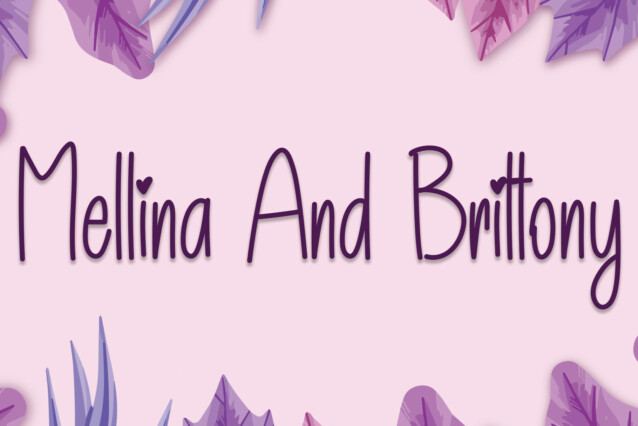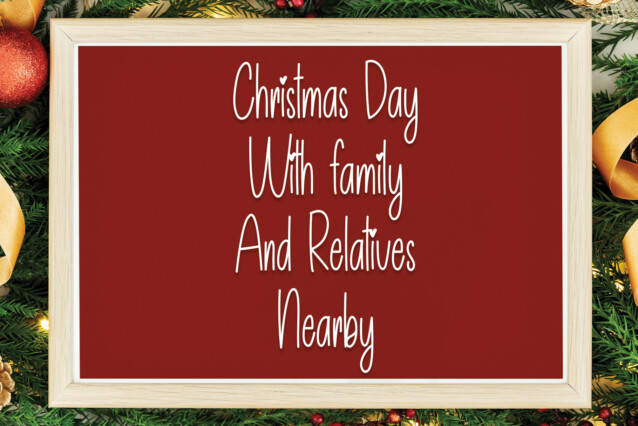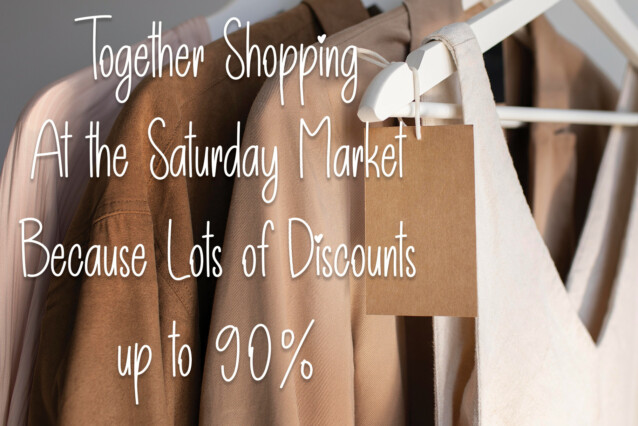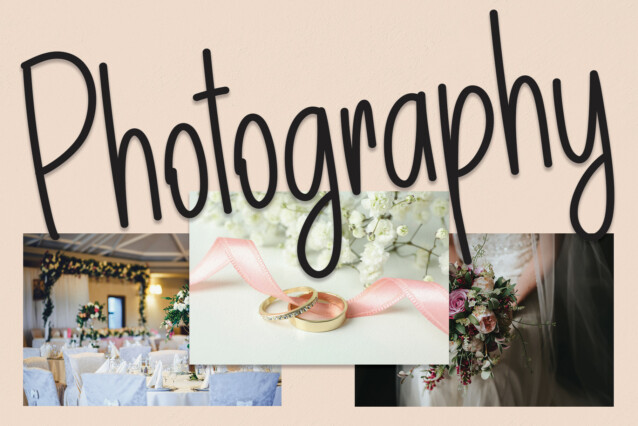
Comeback Christmas Handwritten Font
Comeback Christmas Handwritten Font is a lovely and timeless handwritten font. It is the best choice for creating eye-catching logos, branding, and quotes. Every letter has a unique and beautiful touch, which will make your design come alive!